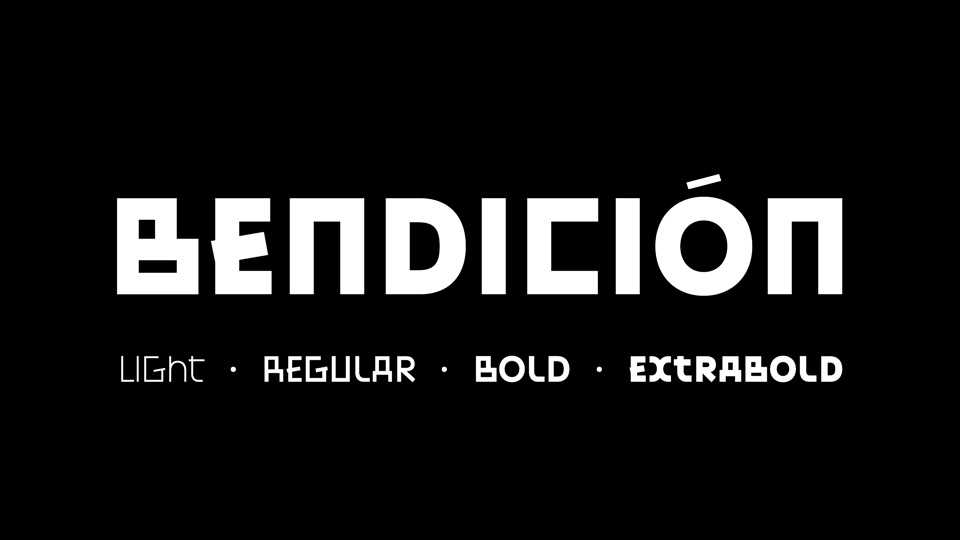
Download Bendición typeface, a unicase font family in four weights. Disrupting the logical construction of each case, the Bendición mixed different styles to give the sensation of an unconventional typeface.
Designer: Pépite Collectif